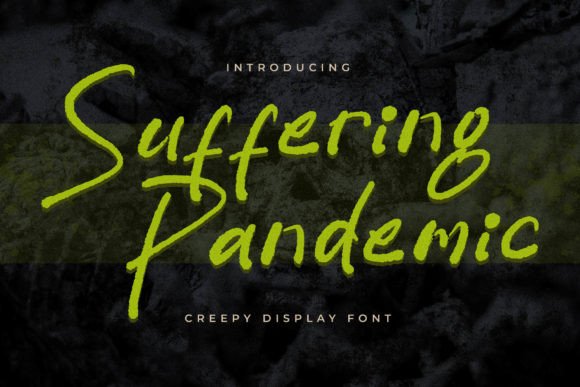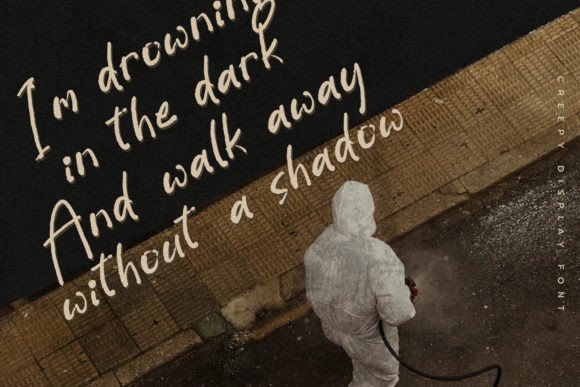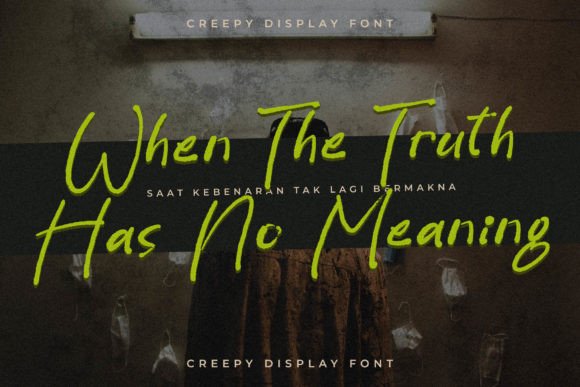
About Suffering Pandemic Font
Suffering Pandemic – Creepy Handwritten font, suitable for any projects such as logos, branding projects, homeware designs, product packaging, mugs, quotes, posters, shopping bags, t-shirts, book covers, name cards, invitation cards, greeting cards, labels, photography, watermark, special events, and all your other lovely projects that need a beautiful script taste.